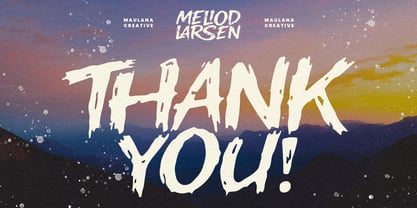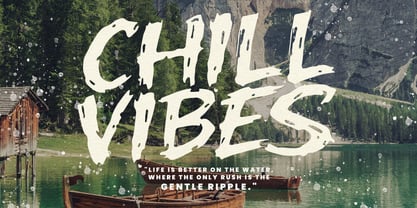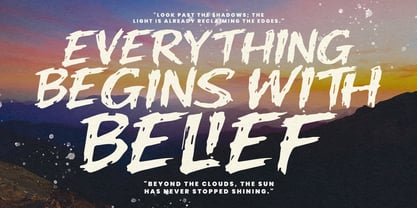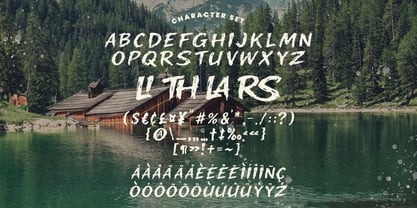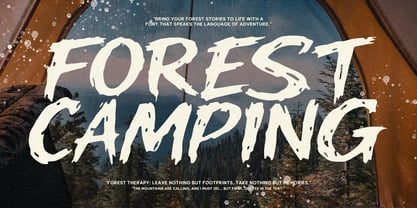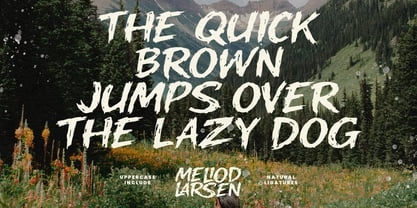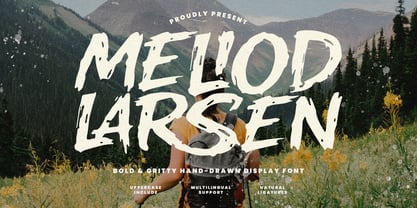
MC Meliod Larsen
by Maulana Creative
The MC Meliod Larsen Font Family was designed by Gilang Maulana and published by Maulana Creative. MC Meliod Larsen contains 1 styles. More about this family
Bring your forest stories to life with Meliod Larsen, a font that speaks the language of adventure. This bold and gritty hand-drawn display font is designed for those who want to capture the raw, untamed essence of nature and the outdoors. Featuring a rugged texture and natural ligatures, it is perfect for branding, camping gear, mountain-themed designs, and travel posters. Meliod Larsen includes uppercase characters and full multilingual support to ensure your message reaches every corner of the wild.
Designers: Gilang Maulana
Foundry: Maulana Creative